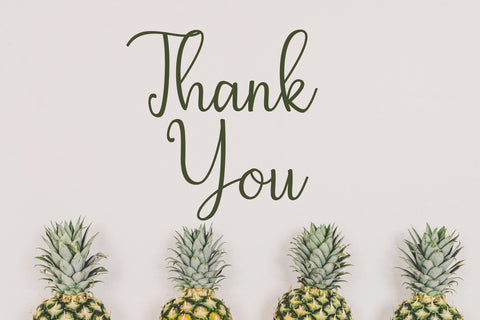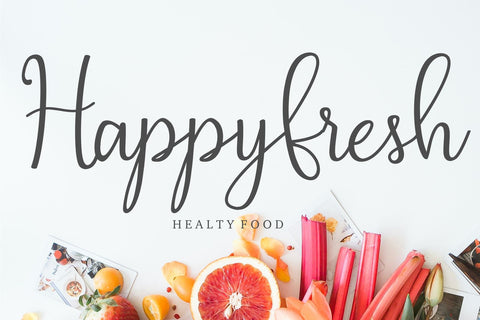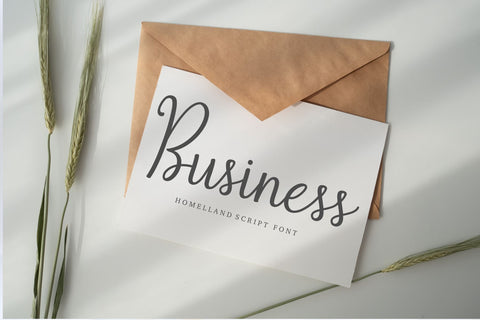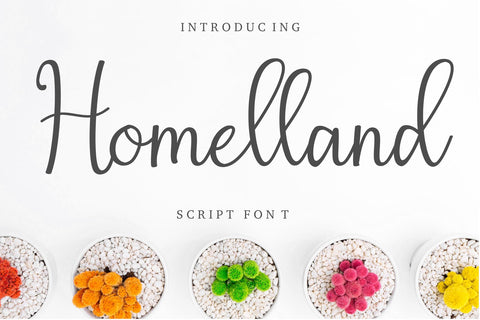
Homelland
Homelland is a well balanced and delicate script font that exudes elegance and class. This font was particularly crafted for those who need a beautiful and refreshing look to their designs.